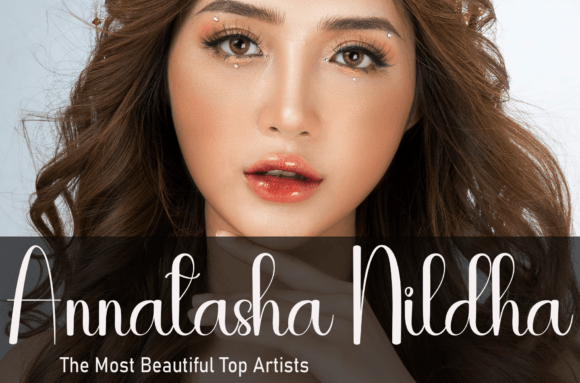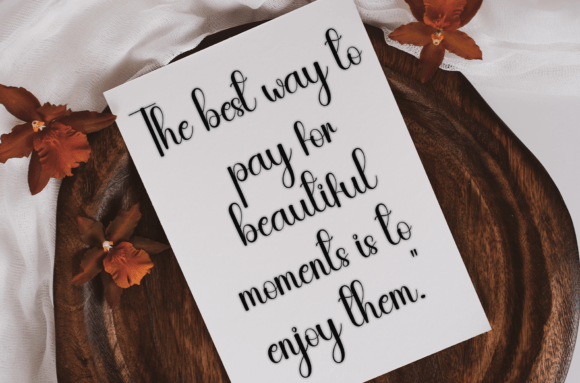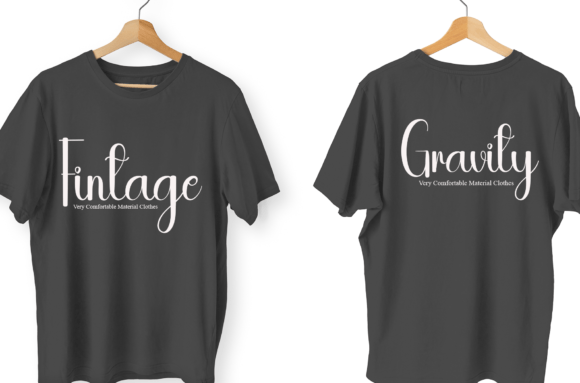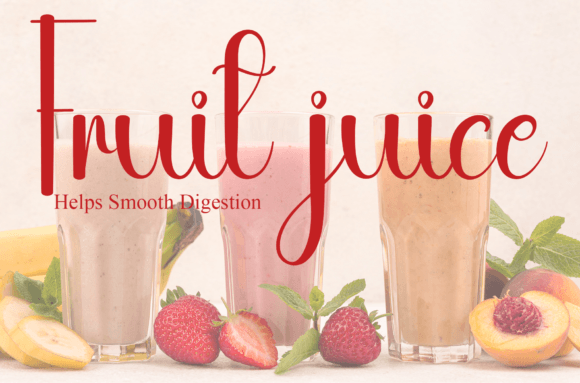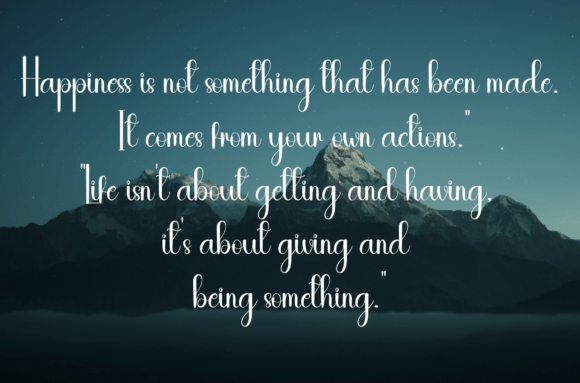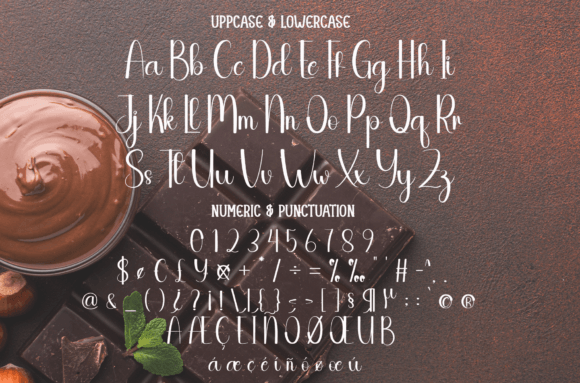
Introducing Chocho Font: The Sweet and Friendly Handwritten Font for Your Creative Projects
Are you looking for a font that can add a touch of sweetness and friendliness to your designs? Look no further than Chocho Font! This beautiful handwritten font is perfect for creating wedding invitations, cards, and other designs that require a fun and playful touch. In this article, we’ll take a closer look at Chocho Font, its features, and how you can use it to elevate your creative projects.
What is Chocho Font?
Chocho Font is a sweet and friendly handwritten font that is designed to bring a touch of warmth and personality to your designs. With its fresh and neat appearance, this font is ideal for a wide range of creative projects, from wedding invitations and cards to social media graphics and blog posts. Whether you’re a designer, crafter, or DIY enthusiast, Chocho Font is a great addition to your font collection.
Key Features of Chocho Font
So, what makes Chocho Font so special? Here are some of its key features:
- Sweet and Friendly Appearance: Chocho Font has a sweet and friendly appearance that is perfect for creating designs that require a personal touch.
- Handwritten Style: This font has a beautiful handwritten style that gives it a unique and authentic feel.
- Fresh and Neat: Chocho Font is fresh and neat, making it easy to read and perfect for use in a wide range of designs.
- Versatile: This font is versatile and can be used in a variety of creative projects, from wedding invitations to social media graphics.
How to Use Chocho Font in Your Designs
Now that we’ve covered the features of Chocho Font, let’s take a look at how you can use it in your designs. Here are some ideas to get you started:
- Wedding Invitations: Chocho Font is perfect for creating beautiful wedding invitations that are both elegant and playful.
- Cards: Use Chocho Font to create personalized cards for special occasions, such as birthdays, anniversaries, and holidays.
- Social Media Graphics: Add a touch of personality to your social media graphics with Chocho Font.
- Blog Posts: Use Chocho Font to add a personal touch to your blog posts and make them more engaging.
Tips for Getting the Most Out of Chocho Font
Here are some tips for getting the most out of Chocho Font:
- Experiment with Different Sizes: Try using Chocho Font in different sizes to create visual interest and hierarchy in your designs.
- Pair it with Other Fonts: Experiment with pairing Chocho Font with other fonts to create a unique and interesting combination.
- Use it in Combination with Images: Use Chocho Font in combination with images to create a visually appealing design.
In conclusion, Chocho Font is a beautiful and versatile handwritten font that is perfect for adding a touch of sweetness and friendliness to your designs. With its fresh and neat appearance, this font is ideal for a wide range of creative projects, from wedding invitations and cards to social media graphics and blog posts. Whether you’re a designer, crafter, or DIY enthusiast, Chocho Font is a great addition to your font collection.